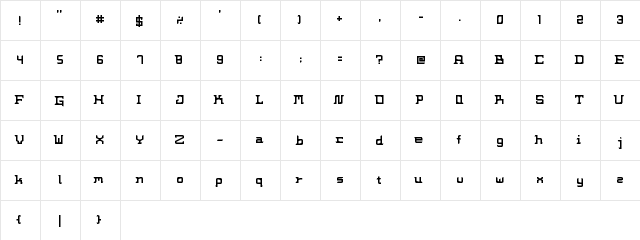
hosker Regular Font Preview
hosker Regular
hosker Regular Font Details
| Designer | Gvon |
| Year | 2010 |
Design Context for hosker Typeface
hosker is a composed and adaptable typeface that performs quietly and consistently across a wide range of design contexts.